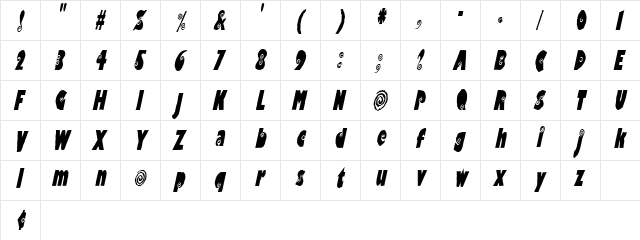
VertigoCondensed Oblique Font Preview
Design Context for VertigoCondensed Typeface
VertigoCondensed is a composed and adaptable typeface that performs quietly and consistently across a wide range of design contexts. The slanted form adds forward momentum and visual energy. Its narrow stance lets it pack a punch even in space-constrained designs.
Pro Tip: Try VertigoCondensed for annotation and caption copy alongside an upright companion — the contrast in angle creates a dynamic but ordered typographic system.